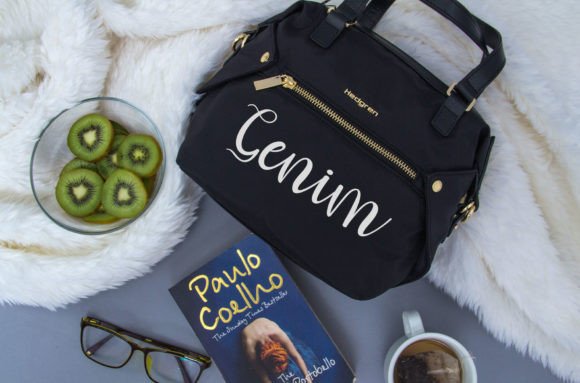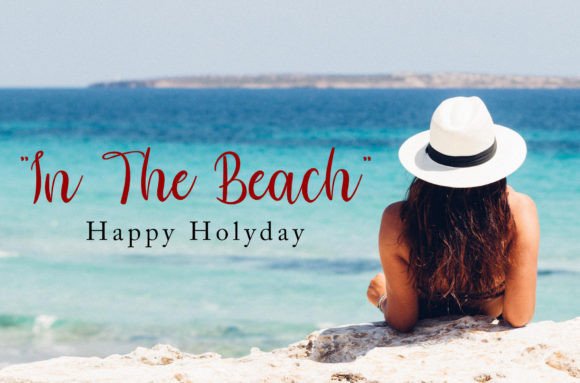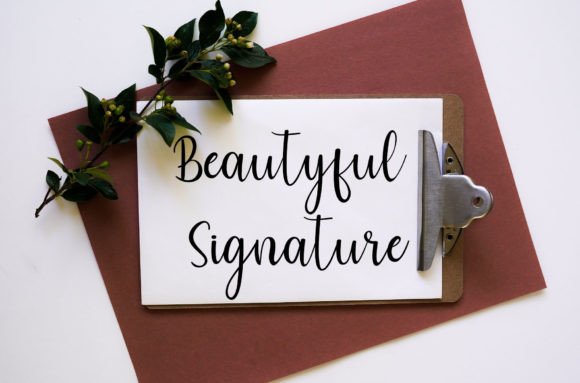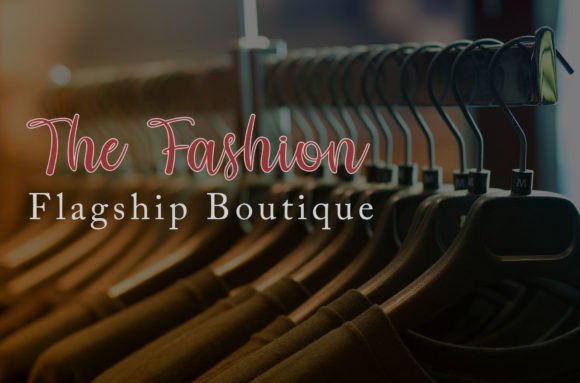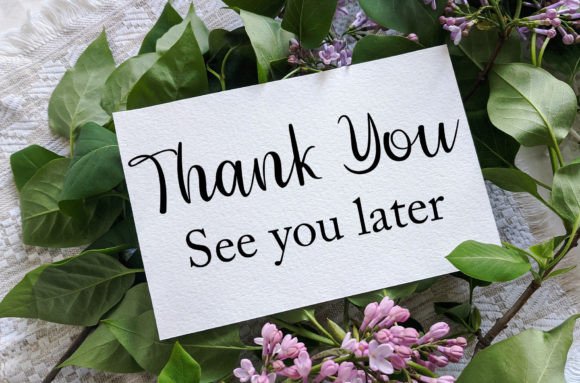
The Perfect Handmade Touch: A Deep Dive into Creative Handmade Font
I’ll never forget the time I was working on a branding project for a local artisan bakery. I had spent hours refining the logo design, but something felt off. The font I had chosen just wasn’t capturing the warm, homespun feel that the bakery’s products embodied. That’s when I stumbled upon Creative Handmade, a bold and expressive handwritten script font that instantly resonated with the bakery’s aesthetic.
Its thick, solid lines made it easy to read, and its conservative curves didn’t overwhelm the eye. I knew right then and there that I had found the perfect fit for the project. In this article, I’ll share my experience with Creative Handmade, including what I love about it, some potential quirks to consider, and practical tips on how to make the most of this versatile font.
- ✅ Easy readability: The font’s bold lines and clear structure make it easy to read, even at smaller sizes.
- ✅ Professional yet playful: Creative Handmade strikes a perfect balance between fun and professionalism, making it suitable for a wide range of design projects.
- ✅ OpenType features: The font comes with a range of OpenType features, including stylistic alternates and glyphs, which allow for added creativity and customization.
- ⚠️ Limited use in body text: While Creative Handmade is great for headlines and titles, it may not be the best choice for longer body text due to its bold and expressive nature.
- ⚠️ Some kerning issues: As with any font, there may be some kerning issues, particularly with certain letter combinations. However, these can usually be easily adjusted in most design software.
Creative Handmade was designed with the goal of creating a font that captures the warmth and personality of handmade craftsmanship. The designer, who is passionate about typography and hand-lettering, drew inspiration from traditional handwritten scripts and combined them with modern digital techniques to create a unique and versatile font.
Q: What is Creative Handmade font?
A: Creative Handmade is a bold and expressive handwritten script font designed for use in a wide range of creative projects.
Q: Is Creative Handmade suitable for body text?
A: While Creative Handmade is great for headlines and titles, it may not be the best choice for longer body text due to its bold and expressive nature.